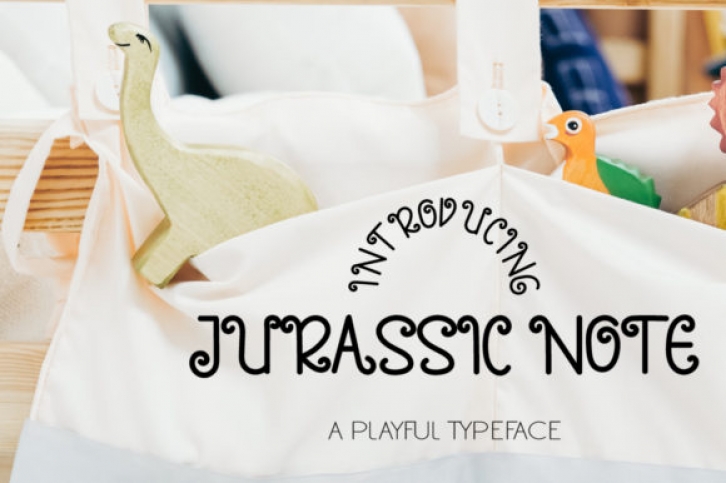
Jurassic Note is a whimsical handwritten font. Its casual charm makes it appear wonderfully down-to-earth, readable and, ultimately, incredibly versatile. Jurassic Note will look outstanding in any context, whether it’s being used on busy backgrounds or as a standalone headline!